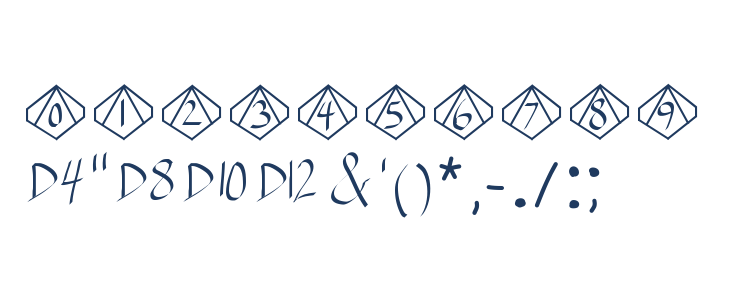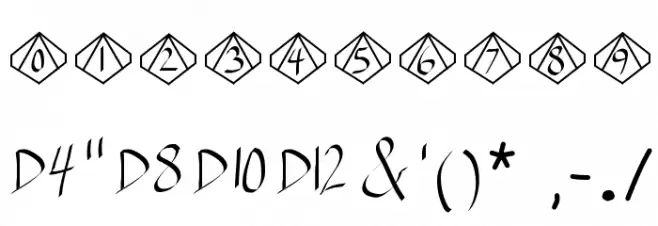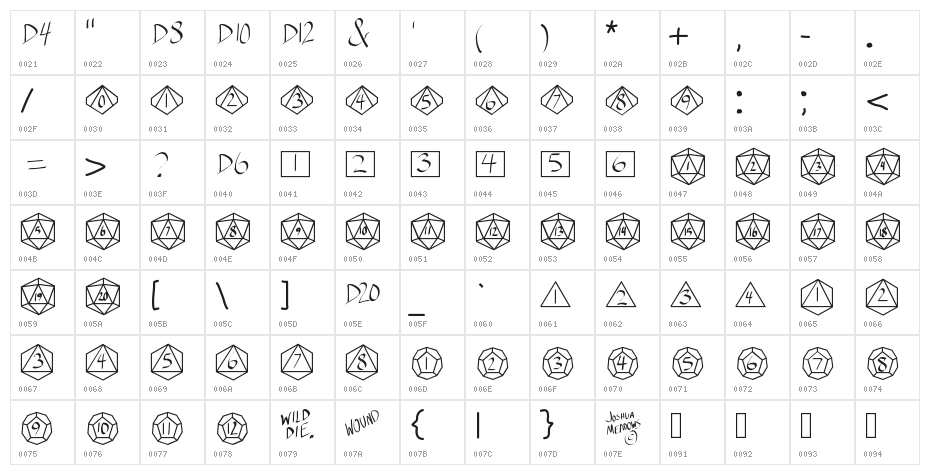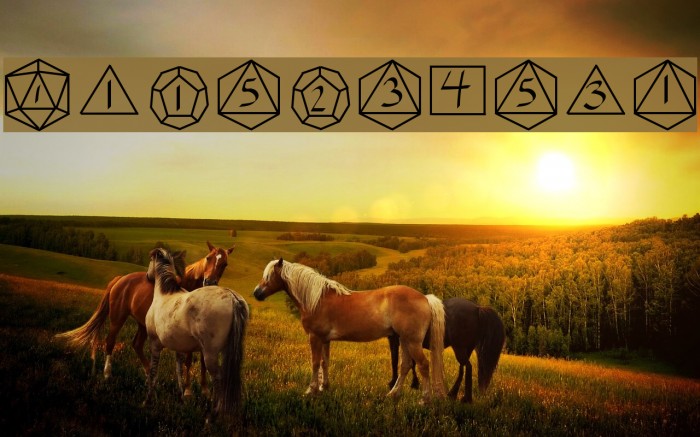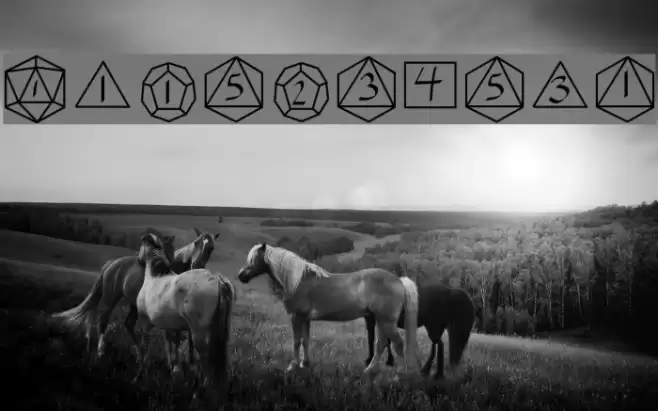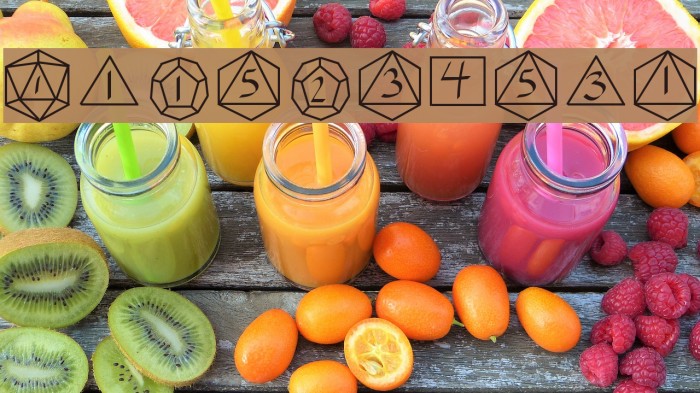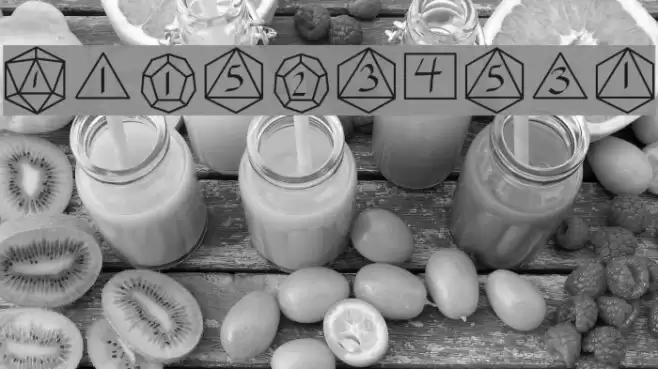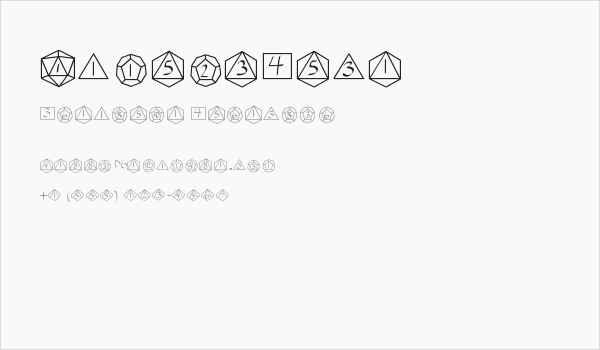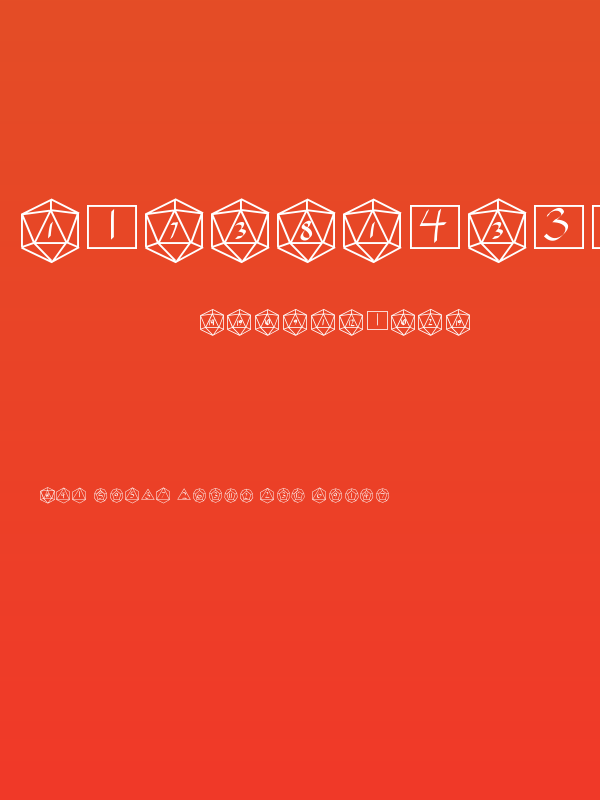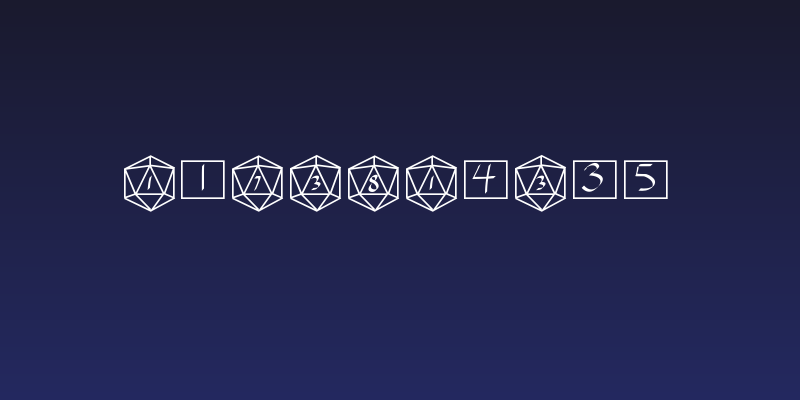
GamingDice Font
GamingDice Description
This font is inspired by the geometric shapes of gaming dice, featuring numbers and symbols enclosed within various polyhedral forms. The characters are bold and angular, reflecting the facets of dice used in tabletop games. The design incorporates a playful yet structured aesthetic, with each numeral and symbol distinctly framed within shapes like squares, triangles, and pentagons. The font captures the essence of gaming culture, making it ideal for projects that aim to evoke a sense of fun and strategy. The unique style of the characters, combined with their geometric enclosures, offers a visually engaging experience, perfect for thematic designs related to games, fantasy, or role-playing contexts.
| Overall Style | Playful, Geometric |
| Use Case | Logos, Posters, Game Titles |
| Proposed Projects | Ideal for board game designs, fantasy-themed posters, role-playing game manuals, and gaming event branding. |